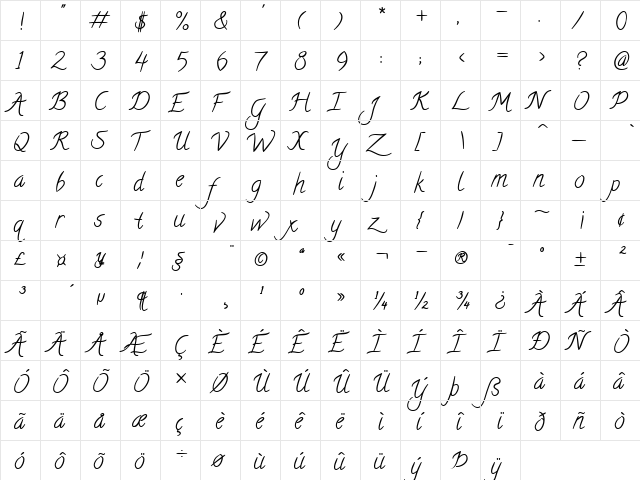
Calligraffitti Regular
| Foundry | Open Window |
| Designer | Dathan Boardman |
| Year | 2010 |
Design Context for Calligraffitti Typeface
Calligraffitti is a composed and adaptable typeface that performs quietly and consistently across a wide range of design contexts.